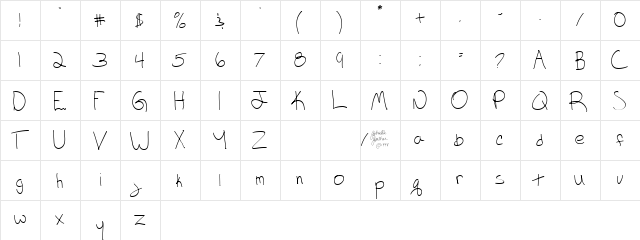
keagan Regular Font Preview
keagan Regular
keagan Regular Font Details
Design Context for keagan Typeface
keagan is a composed and adaptable typeface that performs quietly and consistently across a wide range of design contexts.
Pro Tip: Pair keagan with a font of contrasting weight or personality to build a more expressive typographic hierarchy.